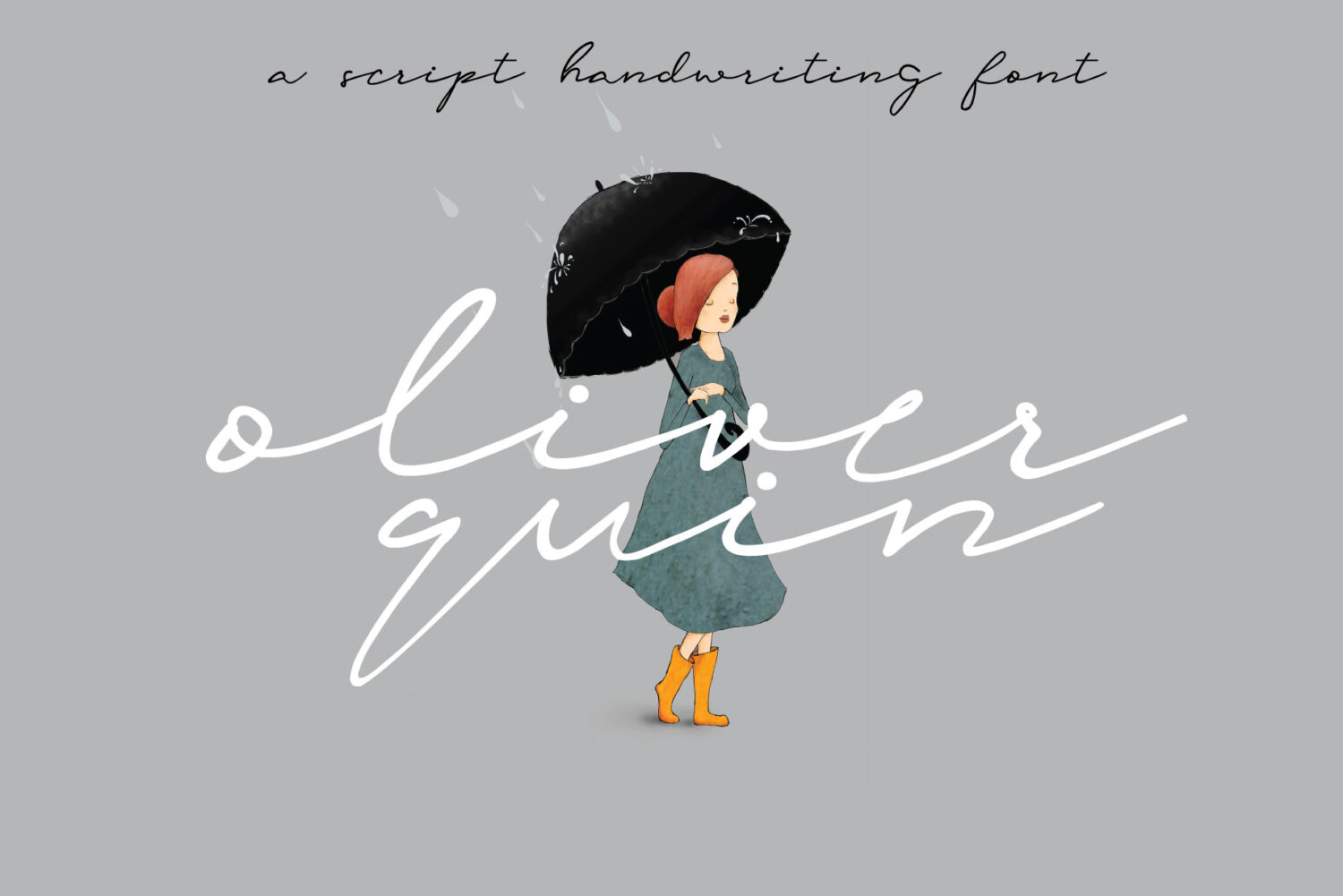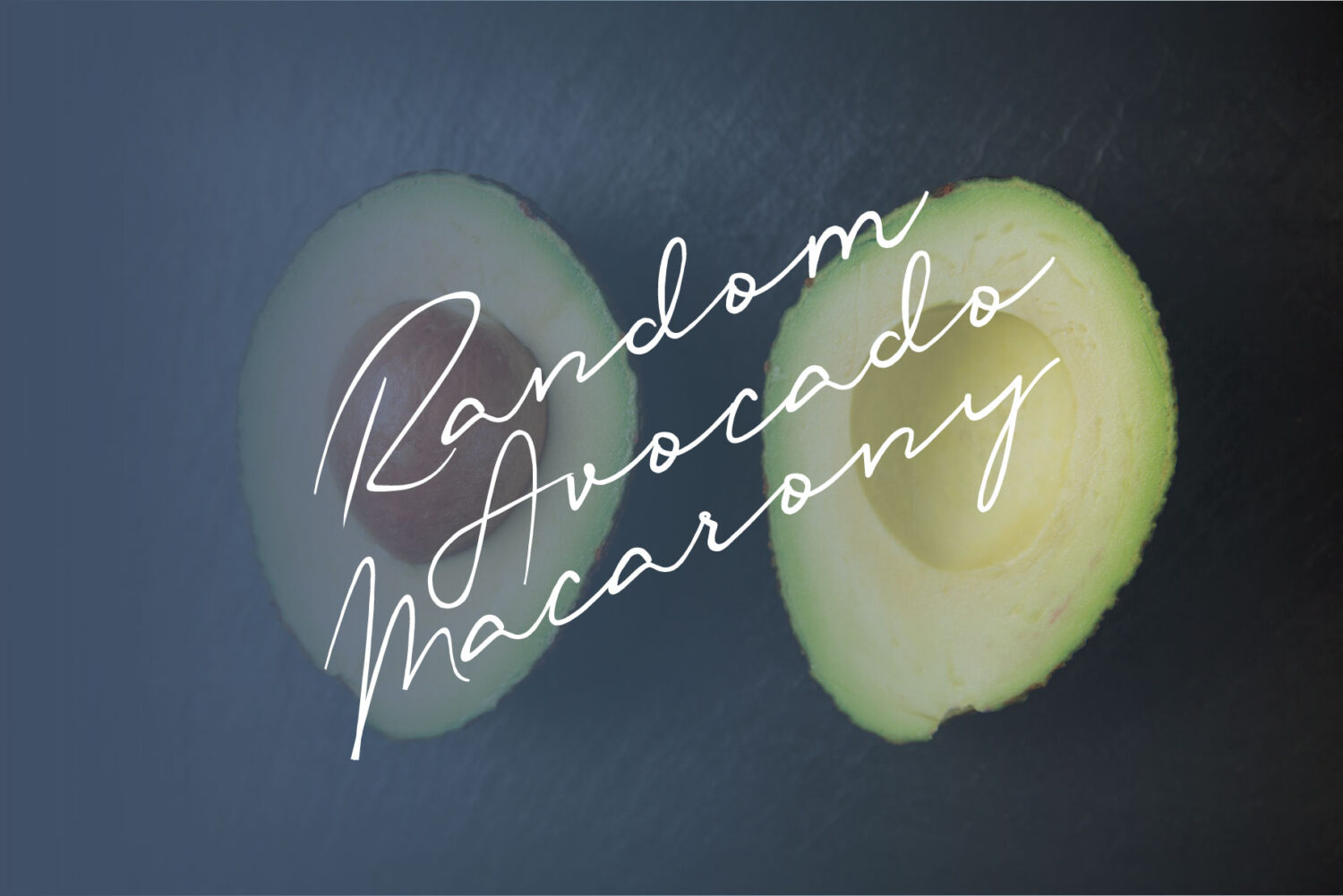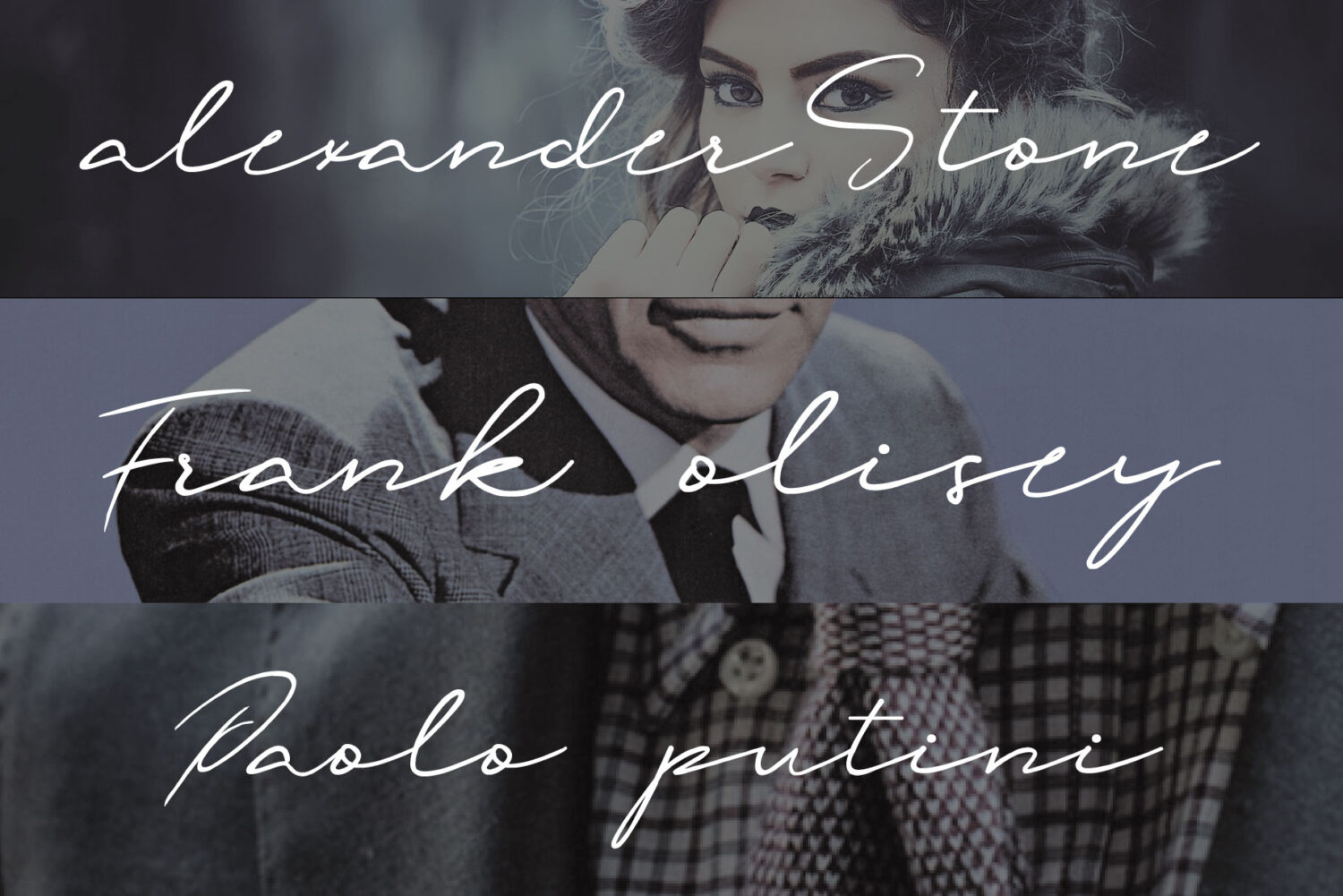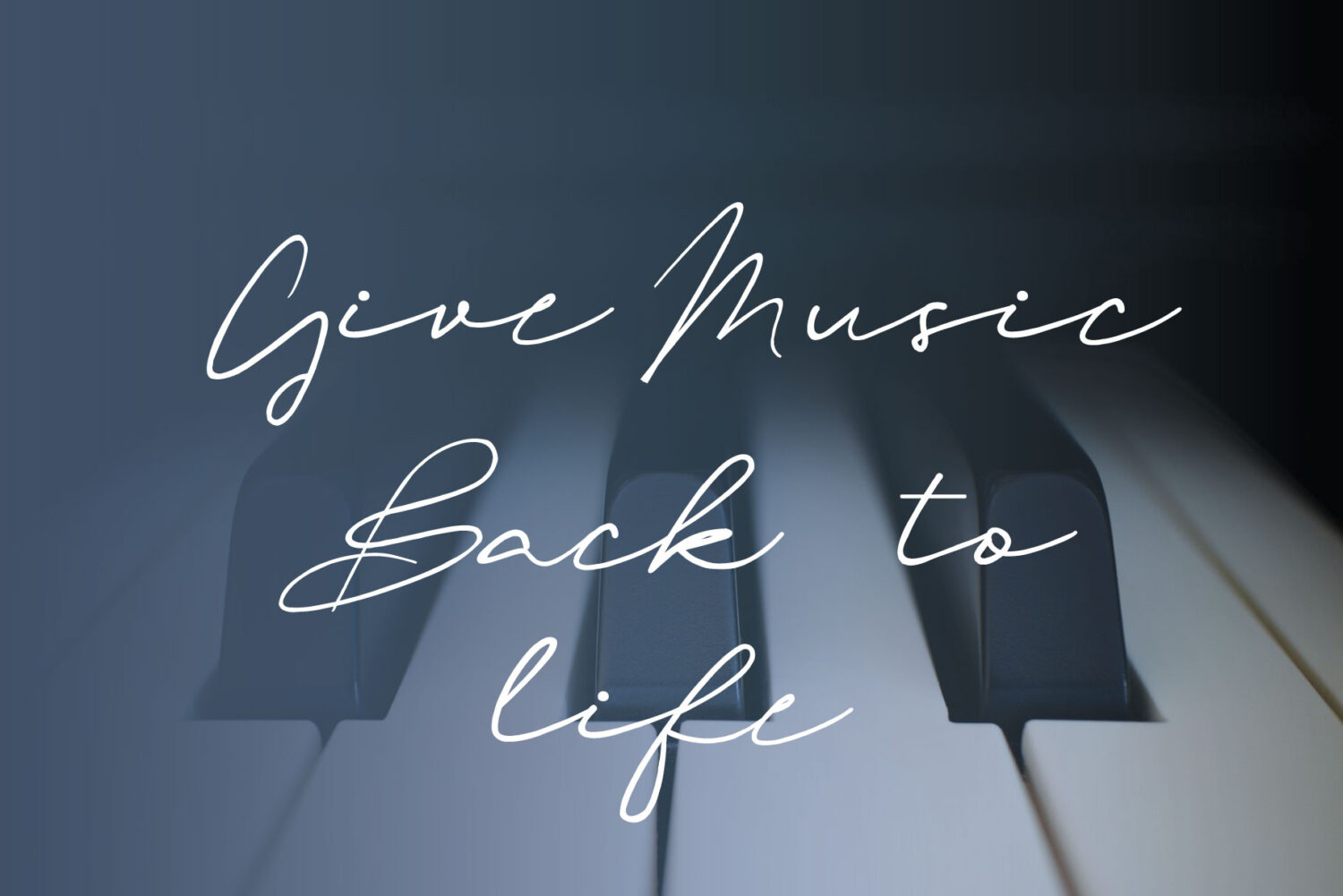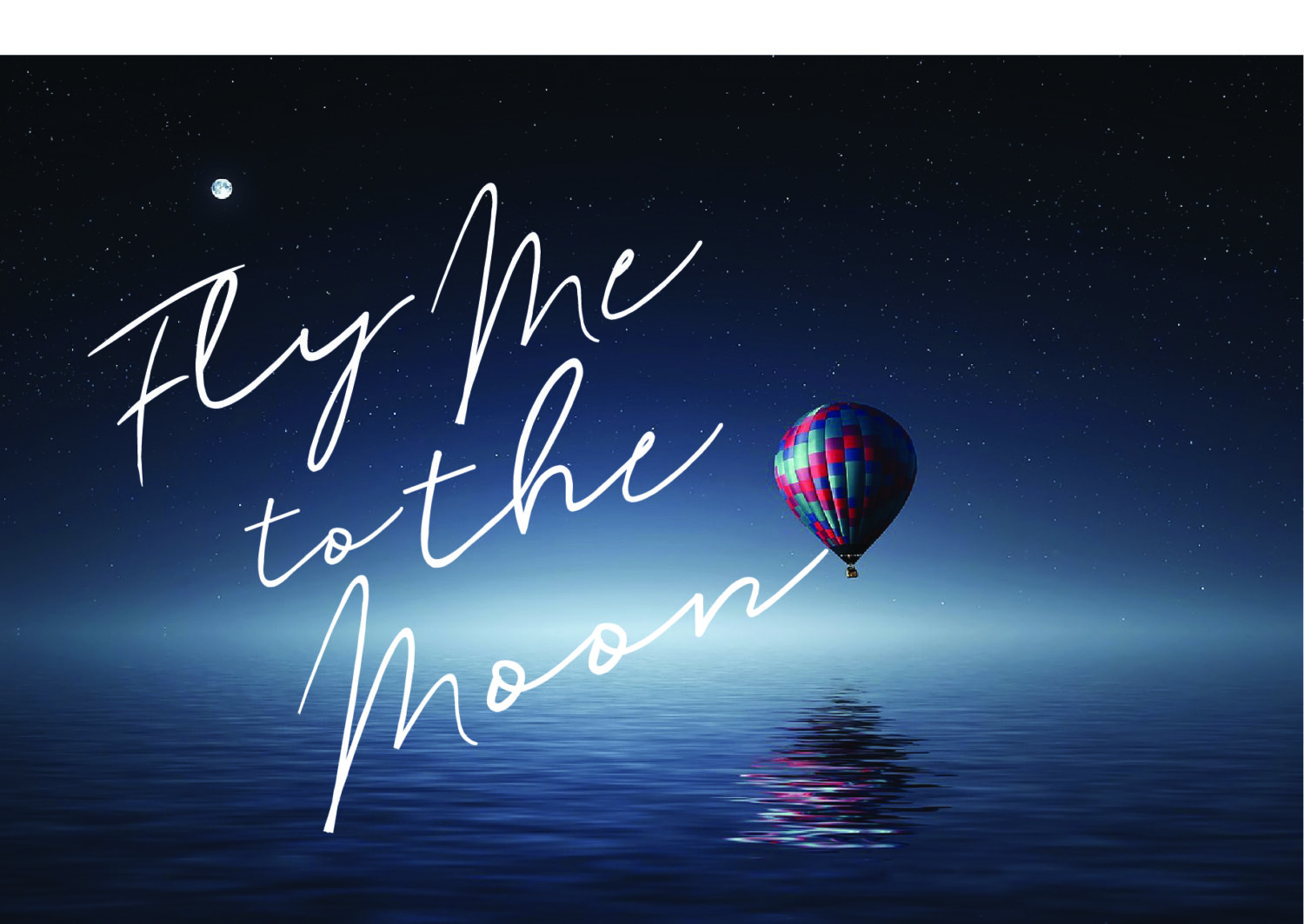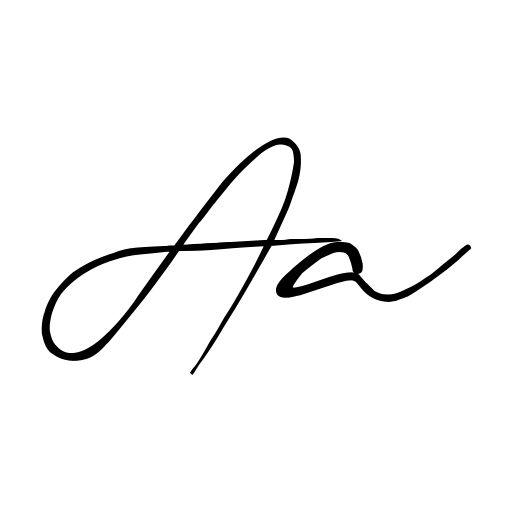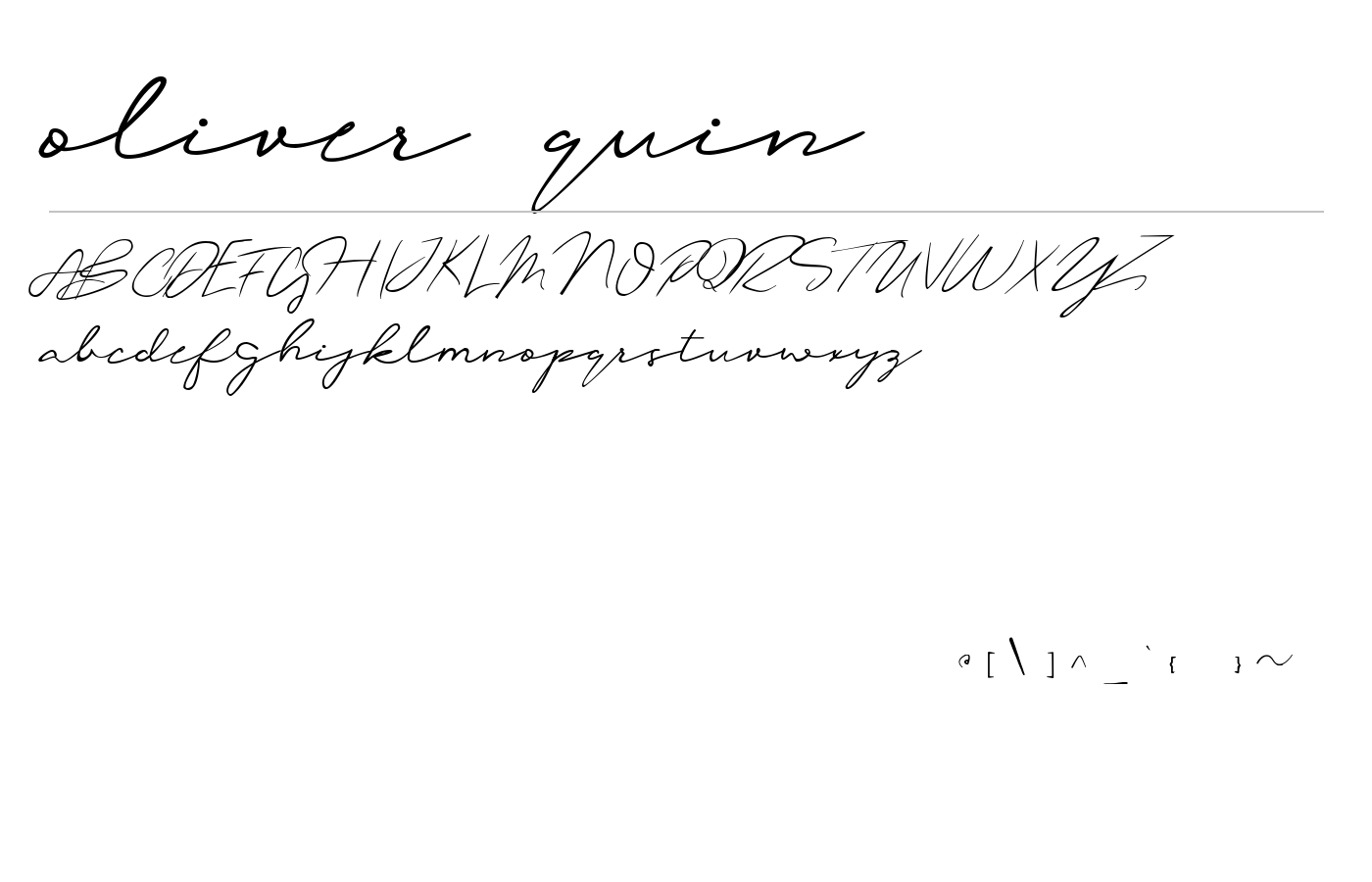
Oliver Quin
Oliver Quin is a low handwriting script font. the font is made in detail also has an elegant style, sweet, simple, and firm character. This free typeface was designed by talented Sigit Nur Wicaksono. If you like it donβt forget to check out the full version.